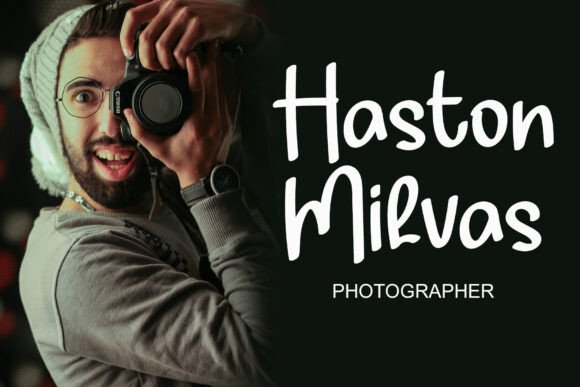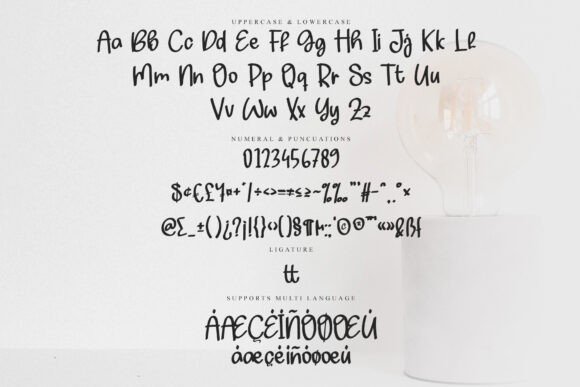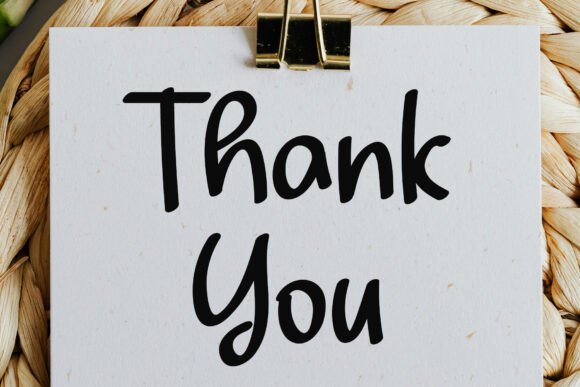
The Magic of Black Writing Font: A Designer’s New Best Friend
I’ll never forget the time I was working on a magazine layout, staring at my screen, and struggling to find the perfect font. My client wanted something elegant, yet bold; something that would make their brand stand out. And then, I stumbled upon Black Writing Font. 💫 It was love at first sight! The beautiful, flowing lines and curves instantly captured my attention, and I knew I had found the one.
What I Love About Black Writing Font ✨
- 💯 It’s perfect for display purposes, making it ideal for magazine headlines, titles, and captions.
- 🎨 The font’s unique style and character make it perfect for crafts, such as handmade cards, invitations, and DIY projects.
- 👍 It’s incredibly versatile and can be used for both digital and print designs.
- 💫 The font’s bold and elegant look makes it perfect for creating stunning designs that grab attention.
While Black Writing Font is an amazing font, there are a few things to keep in mind:
- 🤔 It may not be the best choice for body text, as it’s quite bold and might be overwhelming for longer blocks of text.
- ⚠️ Some users have reported issues with kerning, so it’s essential to adjust the spacing to ensure optimal readability.
The Designer Inspiration Behind Black Writing Font
Black Writing Font was created with the intention of providing a unique, elegant, and bold font for designers and crafters. The font’s designer drew inspiration from traditional calligraphy and handwriting, combining modern techniques and digital tools to create a truly stunning font.
| Font Name | Black Writing Font |
| Author | YanStudio |
Q: What is Black Writing Font best used for?
A: Black Writing Font is perfect for display purposes, such as magazine headlines, titles, and captions. It’s also great for crafts, like handmade cards, invitations, and DIY projects.
Q: Is Black Writing Font suitable for body text?
A: While Black Writing Font is an amazing font, it’s not ideal for body text. Its bold and elegant style makes it perfect for display purposes, but it might be overwhelming for longer blocks of text.